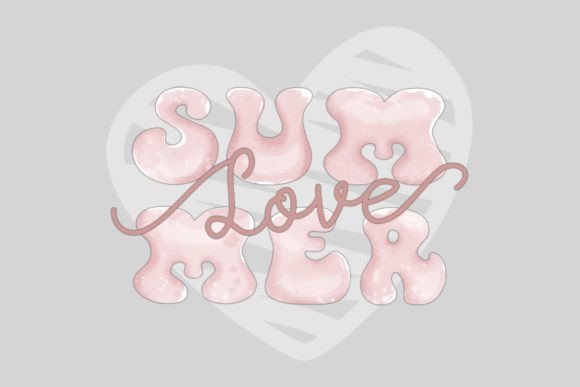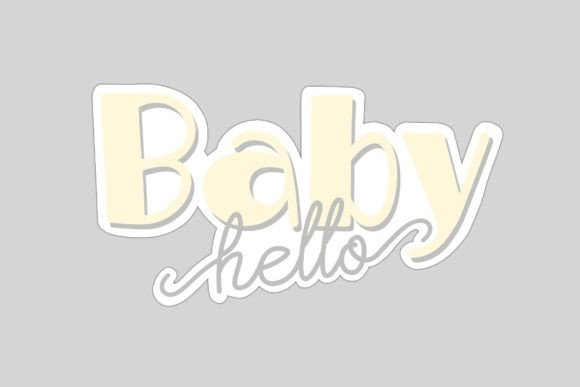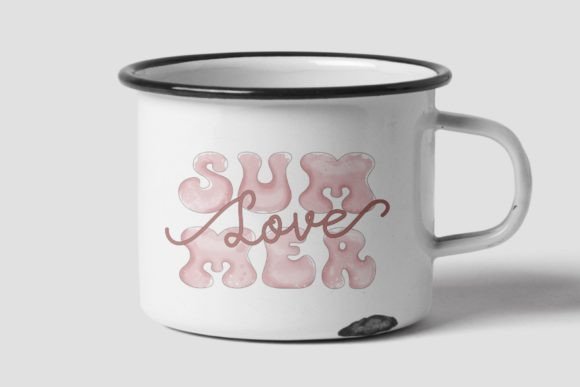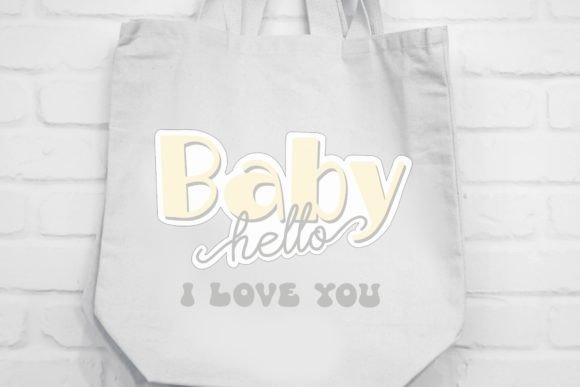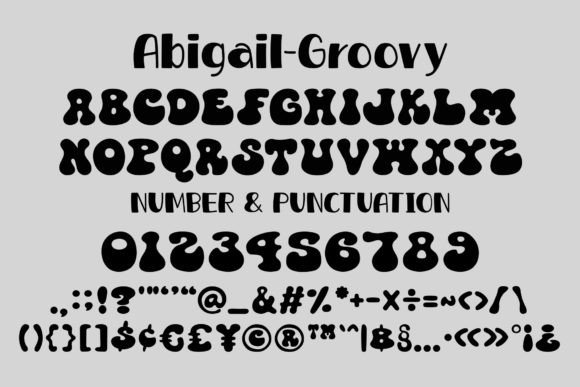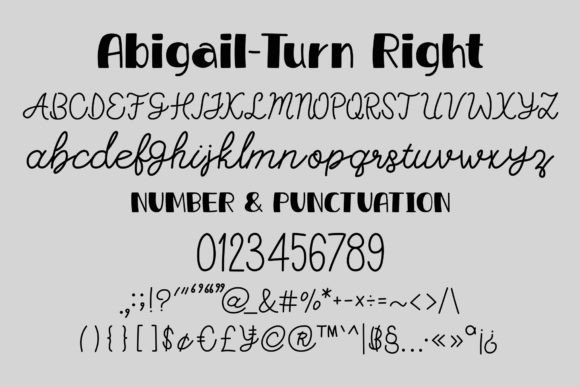
The Perfect Font for a Groovy Design
Remember that moment when you stumbled upon the perfect font, and your design just came alive? It’s like finding the missing piece to a puzzle, and everything falls into place. For designers, this moment is what makes all the hard work worth it. And, we’re excited to introduce you to a font that’s guaranteed to make an impact – Abigail Groovy Font.
This playful trio font features two display and monoline script styles, perfect for adding a touch of personality to your designs. Whether you’re creating a stylish message or a bold headline, Abigail Groovy Font is sure to make a statement. As a valuable asset for designers, it’s a must-have in any font collection.
Abigail Groovy Font Key Features
- Font Family: Abigail Groovy, a unique and playful sans-serif font
- Unique Characteristics: Features a distinctive, hand-drawn feel with subtle irregularities and a touch of whimsy, adding a personal touch to text-based designs
Abigail Groovy Font Review
I was excited to dive into the Abigail Groovy Font, but my experience was a mix of great and not-so-great moments. ✨ First, I love the unique and playful vibe this font brings to the table. It’s perfect for adding a touch of whimsy to your designs. The letterforms are well-crafted, and the contrast between thick and thin lines is well-balanced.
- The font is suitable for various design projects, such as digital art, social media graphics, and even printed materials.
However, there are some limitations to consider. ⚠️ For instance, the font may not be the best choice for body text, as it can be a bit too playful and may lose readability at smaller sizes. Additionally, some users may find the font a bit too quirky, which may not appeal to everyone.
Overall, I’d say the Abigail Groovy Font is a great addition to any designer’s toolkit. While it may not be perfect for every project, it’s sure to add a dash of personality to your designs. With some careful consideration of its limitations, I think you’ll find this font to be a valuable asset in your design arsenal.
Abigail Groovy Font: A Practical Application Guide
Abigail Groovy Font is a unique, hand-drawn font perfect for creative projects. To use it in various platforms, follow these steps:
Use Abigail Groovy Font for creative projects such as invitations, posters, and social media graphics.
Experiment with different font sizes and styles to add visual interest to your designs.
Combine Abigail Groovy Font with other fonts to create a unique and eye-catching visual identity.
Abigail Groovy Font is perfect for:
Event invitations and announcements
Social media graphics and posts
Posters and flyers
Brand identities and logos